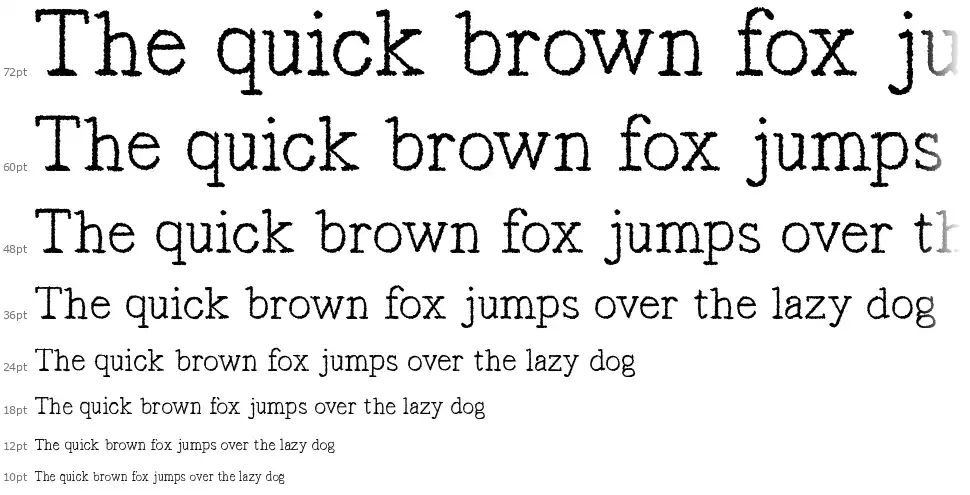
Typist Bold Font Free Download . discover our vast collection of free bold, typewriter fonts. you can use the typist bold to create interesting designs, covers, shop and store name and logos. download typist bold font free! download typist font free! Perfect for adding a vintage touch to your designs. download typist bold font free! These typewriter fonts look like they were written with an old mechanical typewriter.
download typist bold font free! discover our vast collection of free bold, typewriter fonts. download typist bold font free! download typist font free! These typewriter fonts look like they were written with an old mechanical typewriter. you can use the typist bold to create interesting designs, covers, shop and store name and logos. Perfect for adding a vintage touch to your designs.
Typist Bold Font Free Download download typist bold font free! Perfect for adding a vintage touch to your designs. you can use the typist bold to create interesting designs, covers, shop and store name and logos. download typist bold font free! discover our vast collection of free bold, typewriter fonts. download typist font free! These typewriter fonts look like they were written with an old mechanical typewriter.
Typist Bold truetype font Typist Bold Font Free Download download typist font free! These typewriter fonts look like they were written with an old mechanical typewriter. download typist bold font free! Perfect for adding a vintage touch to your designs. download typist bold font free! you can use the typist bold to create interesting designs, covers, shop and store name and logos. discover our. Typist Bold Font Free Download.
Typistys Font Family · 1001 Fonts Typist Bold Font Free Download you can use the typist bold to create interesting designs, covers, shop and store name and logos. discover our vast collection of free bold, typewriter fonts. These typewriter fonts look like they were written with an old mechanical typewriter. download typist bold font free! Perfect for adding a vintage touch to your designs. download typist bold. Typist Bold Font Free Download.
Typistys Font Family · 1001 Fonts Typist Bold Font Free Download download typist bold font free! These typewriter fonts look like they were written with an old mechanical typewriter. discover our vast collection of free bold, typewriter fonts. download typist font free! download typist bold font free! Perfect for adding a vintage touch to your designs. you can use the typist bold to create interesting designs,. Typist Bold Font Free Download.
LaBrea Typist Font download free Typist Bold Font Free Download These typewriter fonts look like they were written with an old mechanical typewriter. download typist bold font free! Perfect for adding a vintage touch to your designs. download typist font free! you can use the typist bold to create interesting designs, covers, shop and store name and logos. discover our vast collection of free bold, typewriter. Typist Bold Font Free Download.
Simple Bold Fonts Alphabet Typist Bold Font Free Download These typewriter fonts look like they were written with an old mechanical typewriter. Perfect for adding a vintage touch to your designs. download typist bold font free! discover our vast collection of free bold, typewriter fonts. download typist font free! you can use the typist bold to create interesting designs, covers, shop and store name and. Typist Bold Font Free Download.
Typist's Pseudonym font by Chequered Ink FontRiver Typist Bold Font Free Download These typewriter fonts look like they were written with an old mechanical typewriter. you can use the typist bold to create interesting designs, covers, shop and store name and logos. download typist bold font free! download typist bold font free! discover our vast collection of free bold, typewriter fonts. Perfect for. Typist Bold Font Free Download.
15 Free Fonts That Harken Back To Vintage Typography HuffPost Typist Bold Font Free Download discover our vast collection of free bold, typewriter fonts. you can use the typist bold to create interesting designs, covers, shop and store name and logos. Perfect for adding a vintage touch to your designs. download typist font free! These typewriter fonts look like they were written with an old mechanical typewriter. download typist bold font. Typist Bold Font Free Download.
20+ Best Classic Typewriter Fonts With Old (Vintage) Machine Styles Typist Bold Font Free Download These typewriter fonts look like they were written with an old mechanical typewriter. download typist font free! you can use the typist bold to create interesting designs, covers, shop and store name and logos. Perfect for adding a vintage touch to your designs. discover our vast collection of free bold, typewriter fonts. download typist bold font. Typist Bold Font Free Download.
Typist Bold truetype font Typist Bold Font Free Download you can use the typist bold to create interesting designs, covers, shop and store name and logos. download typist font free! download typist bold font free! discover our vast collection of free bold, typewriter fonts. These typewriter fonts look like they were written with an old mechanical typewriter. Perfect for adding a vintage touch to your. Typist Bold Font Free Download.